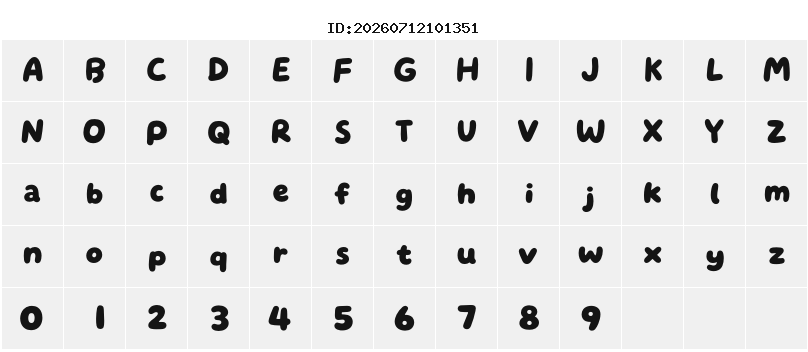
呆萌手写体 Preview
• Font Name: 呆萌手写体
• Designer: K99Xmas
About 呆萌手写体.otf
呆萌手写体.otf is a modern, elegant sans-serif font designed for ultimate readability and visual harmony. Perfect for branding, headlines, web design, and print materials.